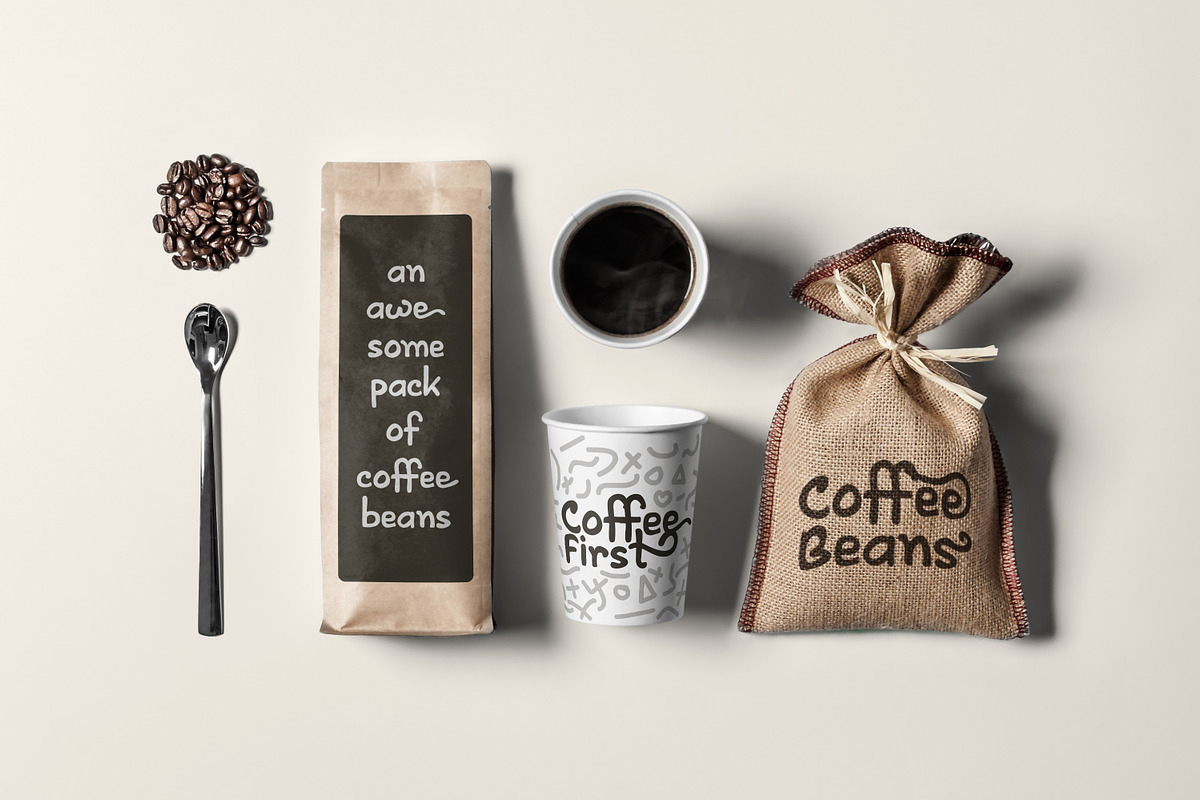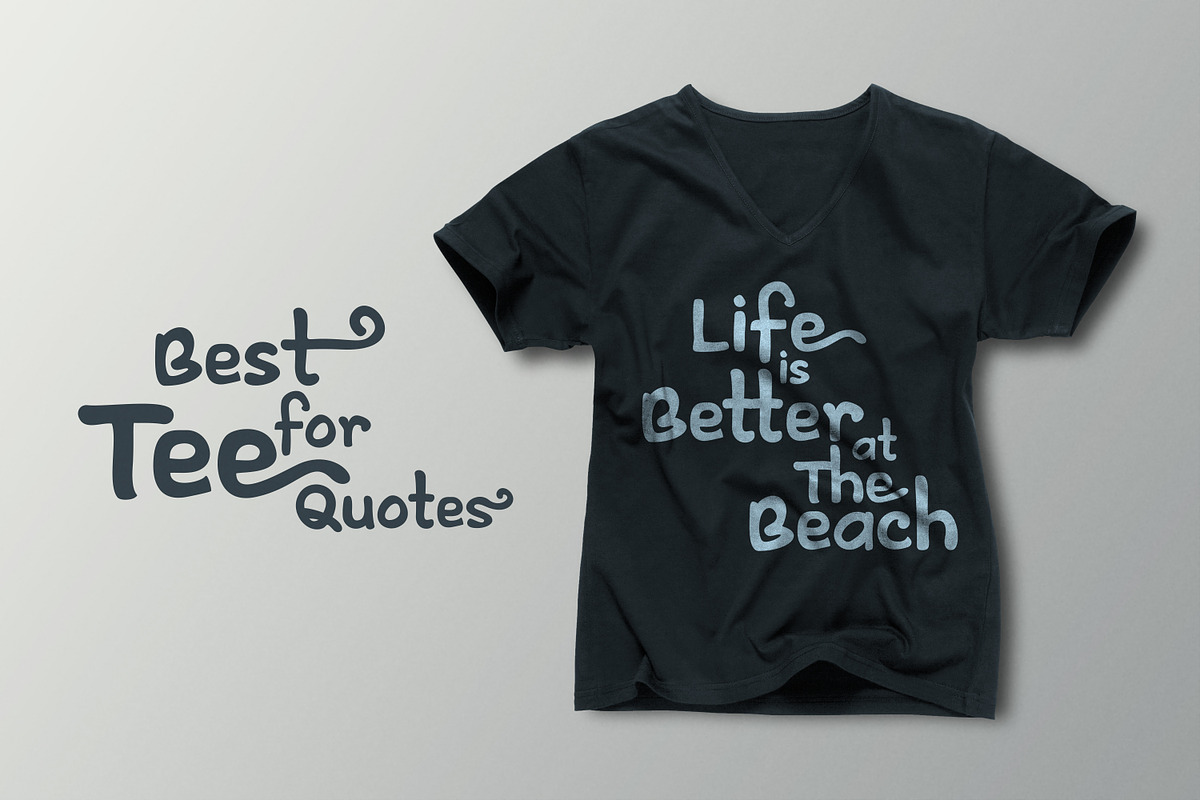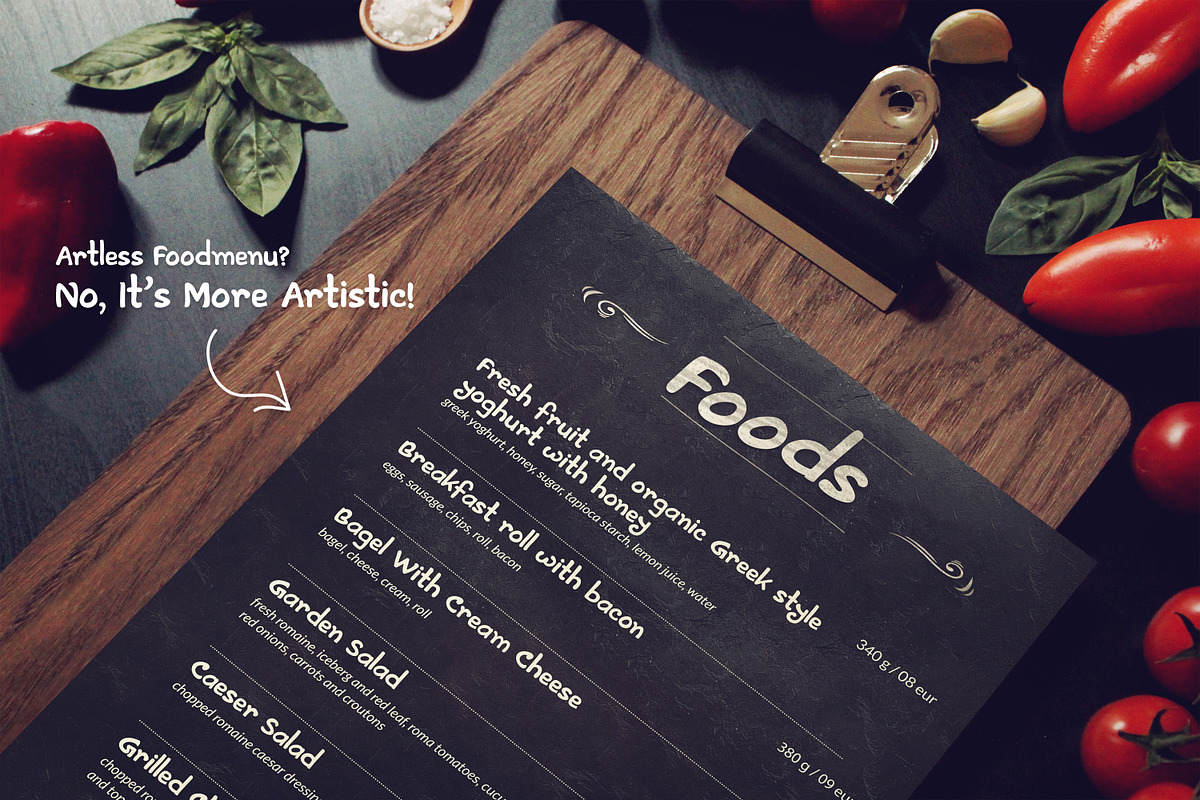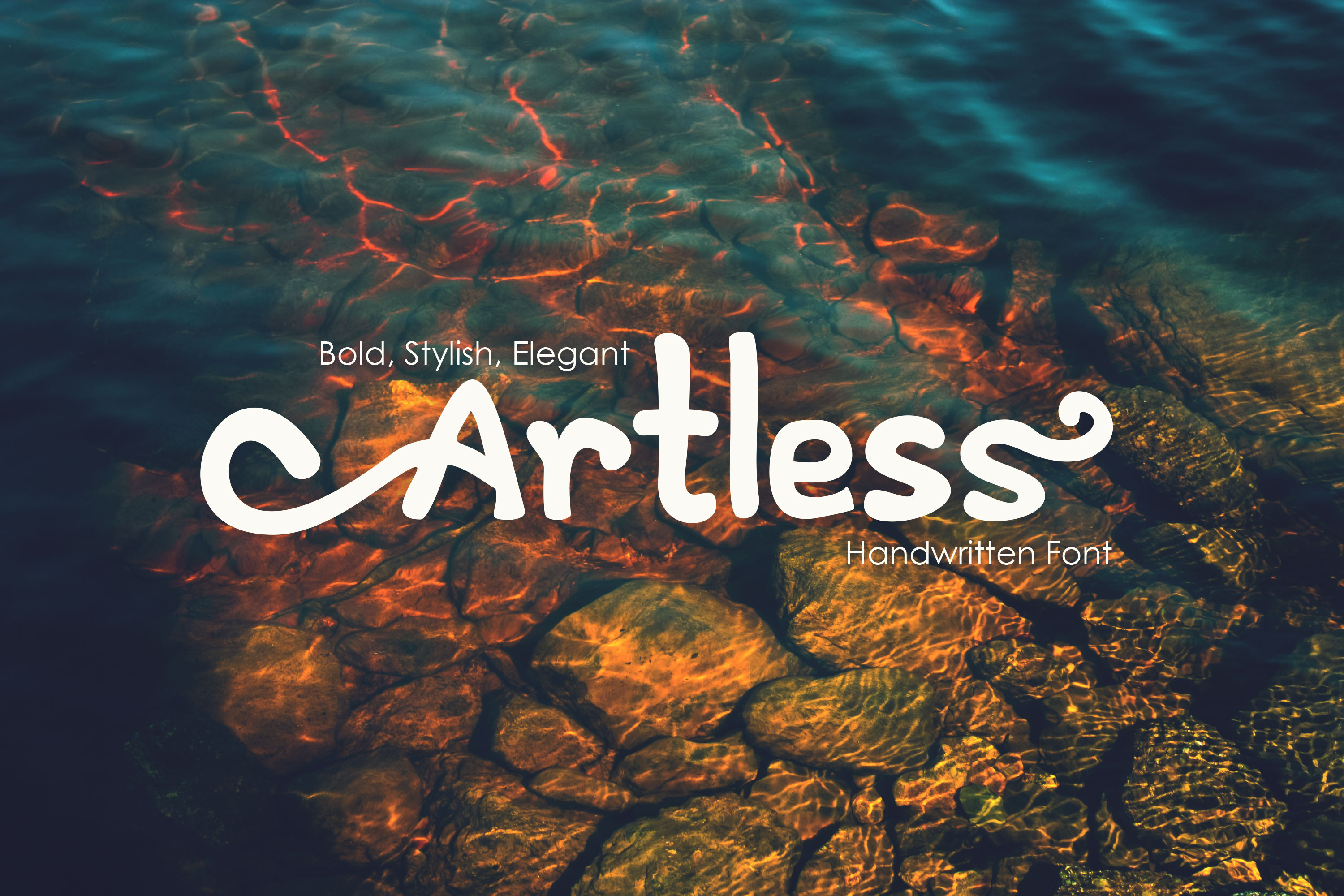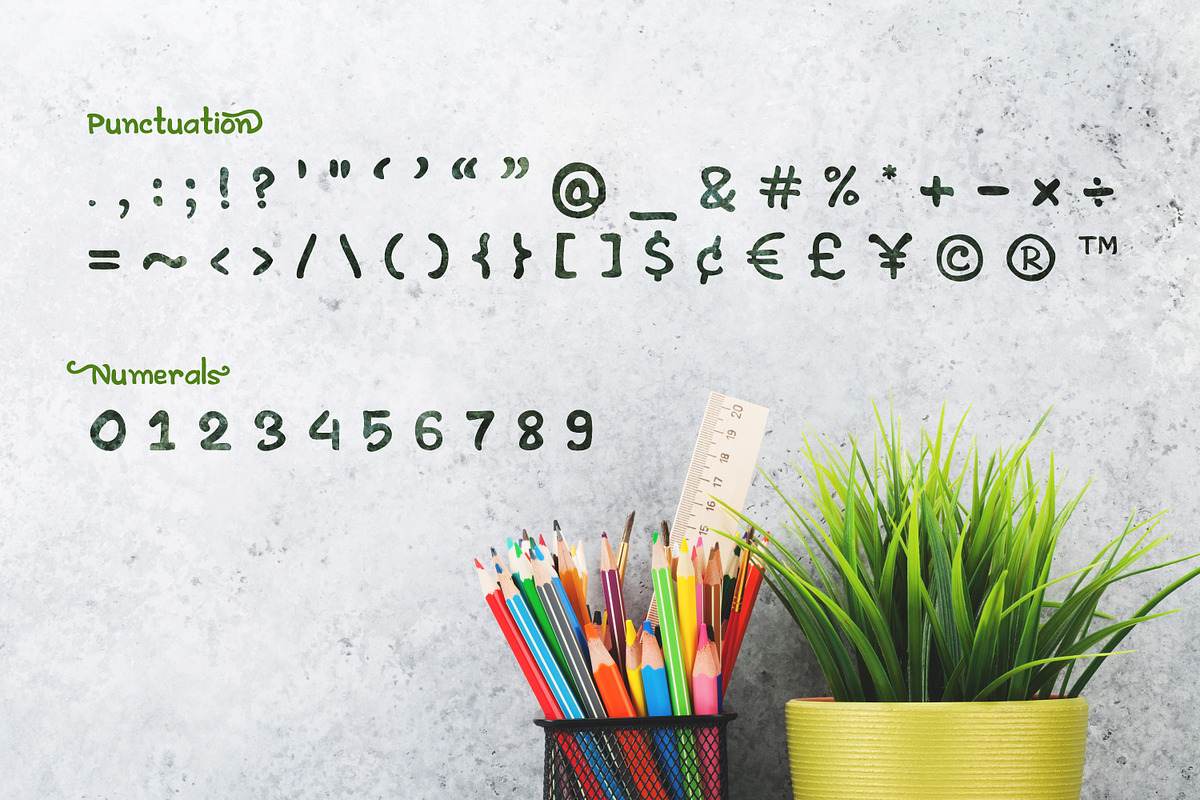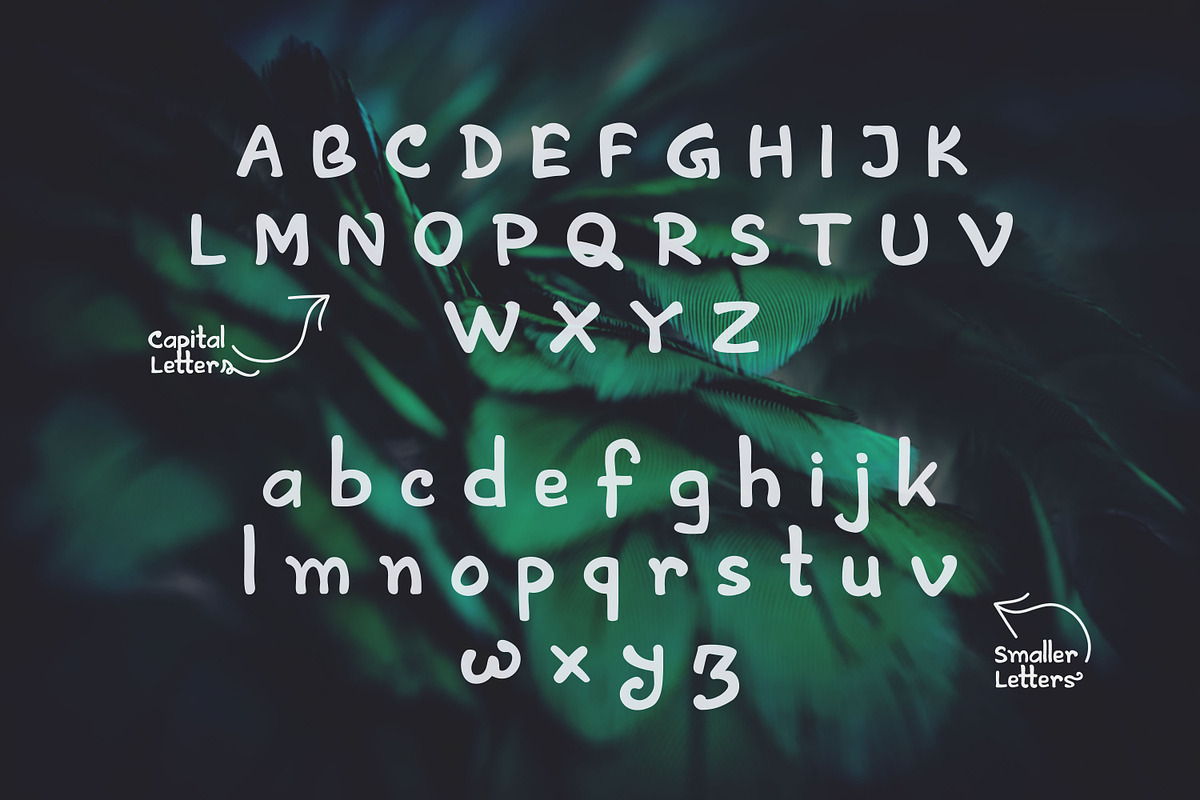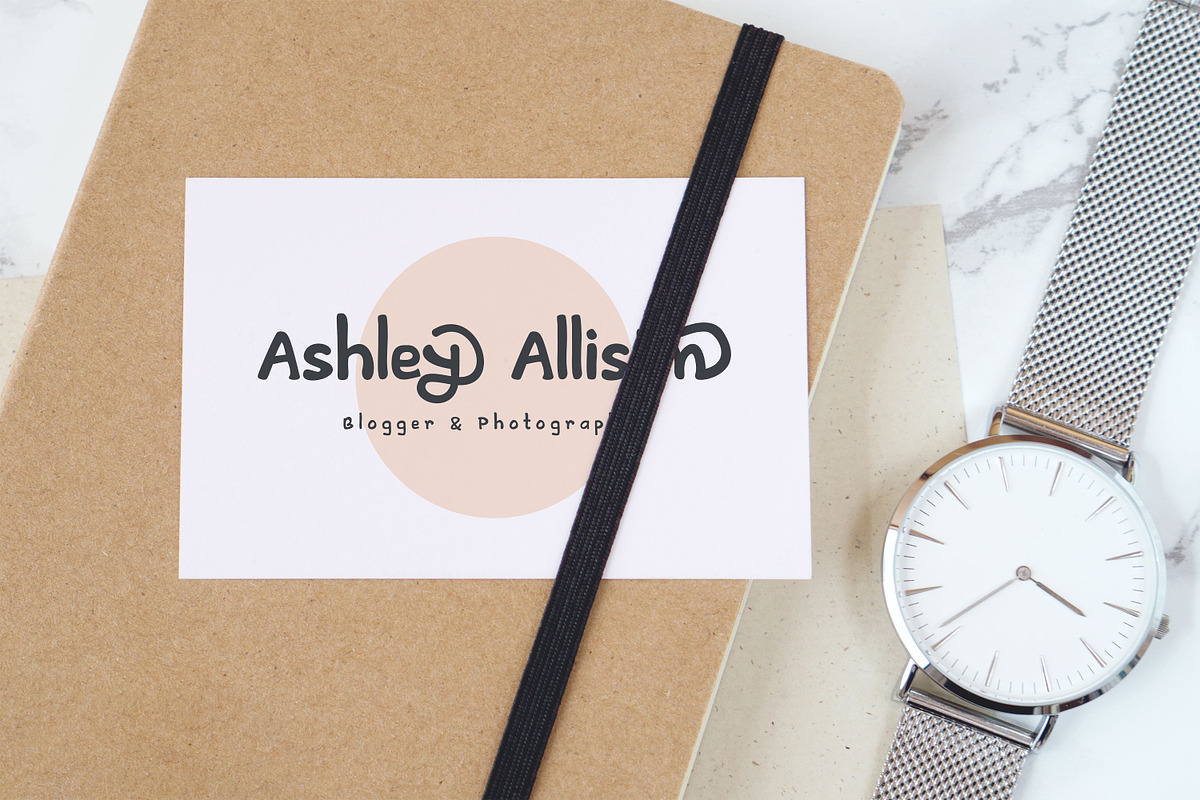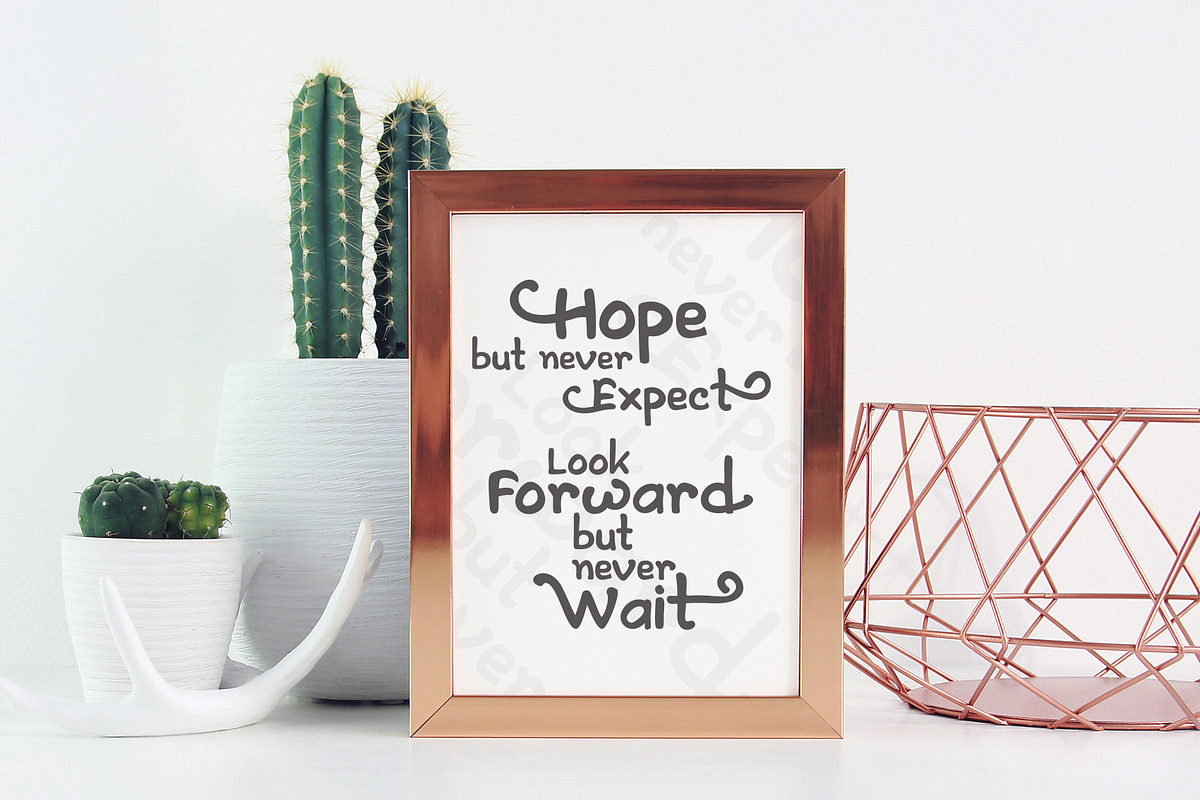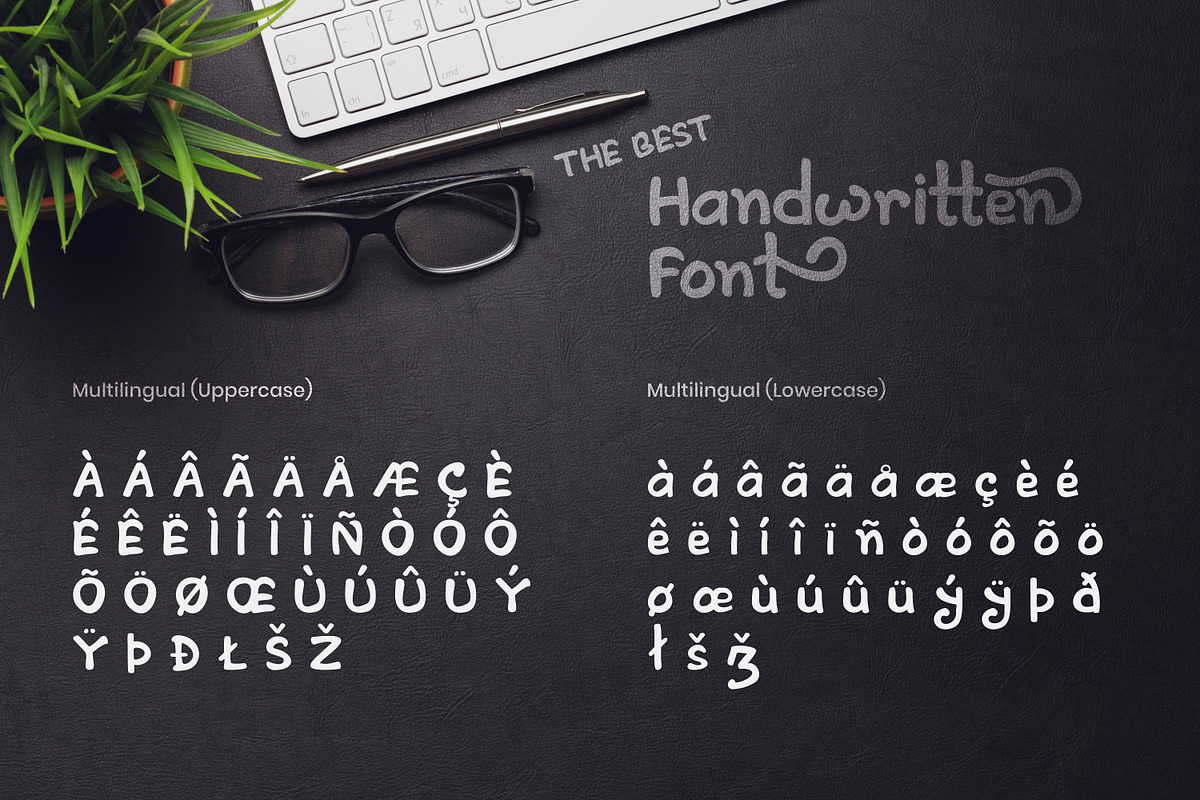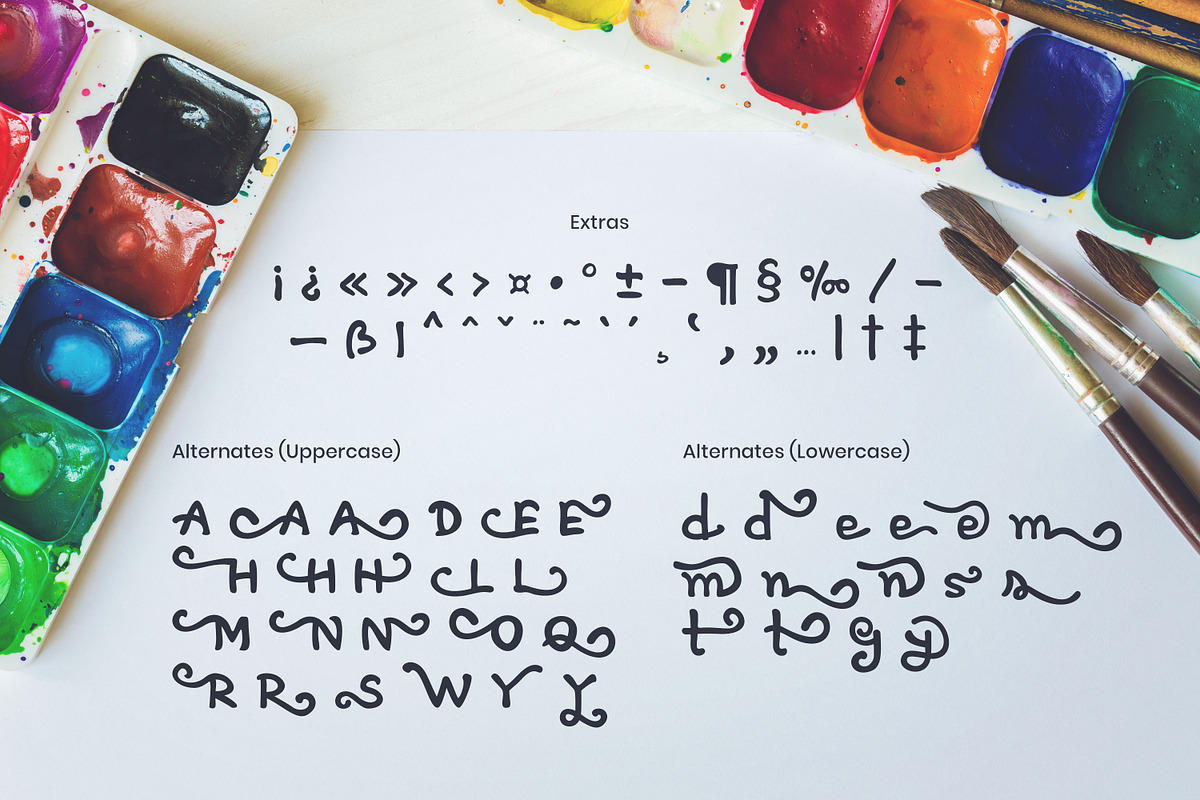
Artless - Handwritten Font
Introducing a new handwriting font. It creates a beautiful atmosphere to your design and feels joyful. The font is fully handmade, polished by mouse for some creative perfection along with some secret sauce cooked at our studio.
- Total 246 Glyphs
- A-Z Standard Capital Letters
- a-z Standard Smaller Letters
- 0-9 Numerals
- Standard Punctuations (PUA)
- Multingual Characters